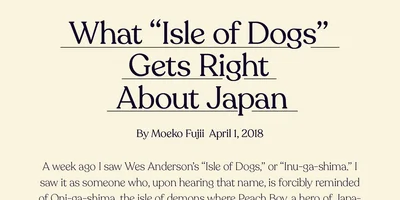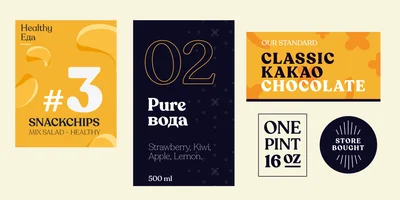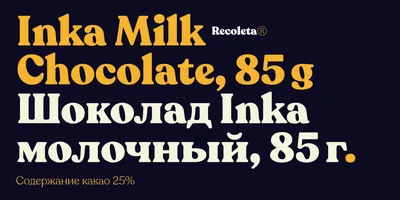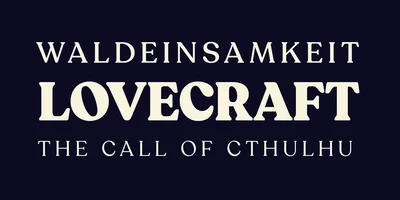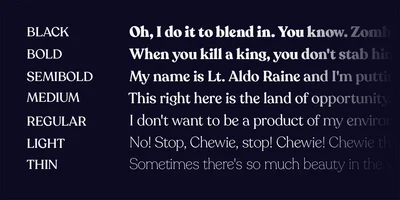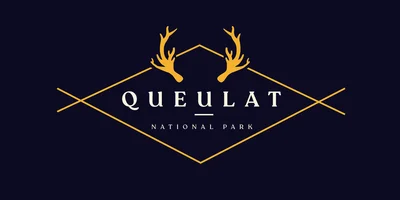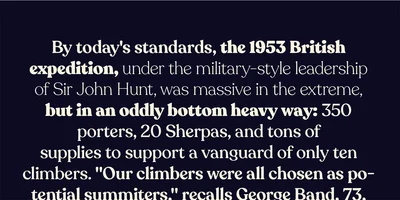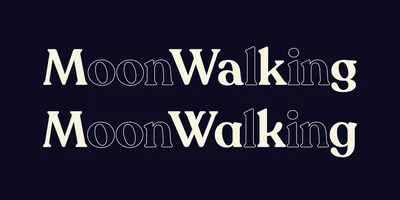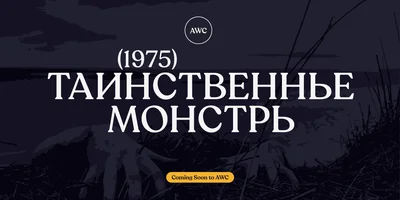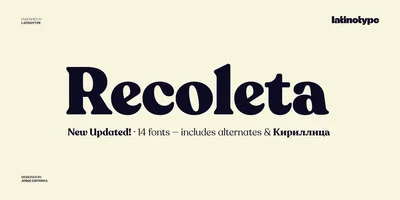
Heldane vs Recoleta
Heldane and Recoleta are both serif typefaces sharing a display foundation. Where Heldane leans editorial, elegant, Recoleta brings rounded, retro. Compare which suits your Editorial project.
Heldane
ElegantModern
DisplayEditorial
Recoleta
Rounded
RetroWarm
Display
Feature Heldane Recoleta
Classification serif serif
Display & Headlines
Luxury
Packaging
Recommended: Heldane
• editorial, elegant design character
• Suited for Luxury
Consider: Recoleta
• rounded, retro design character
• Suited for Packaging